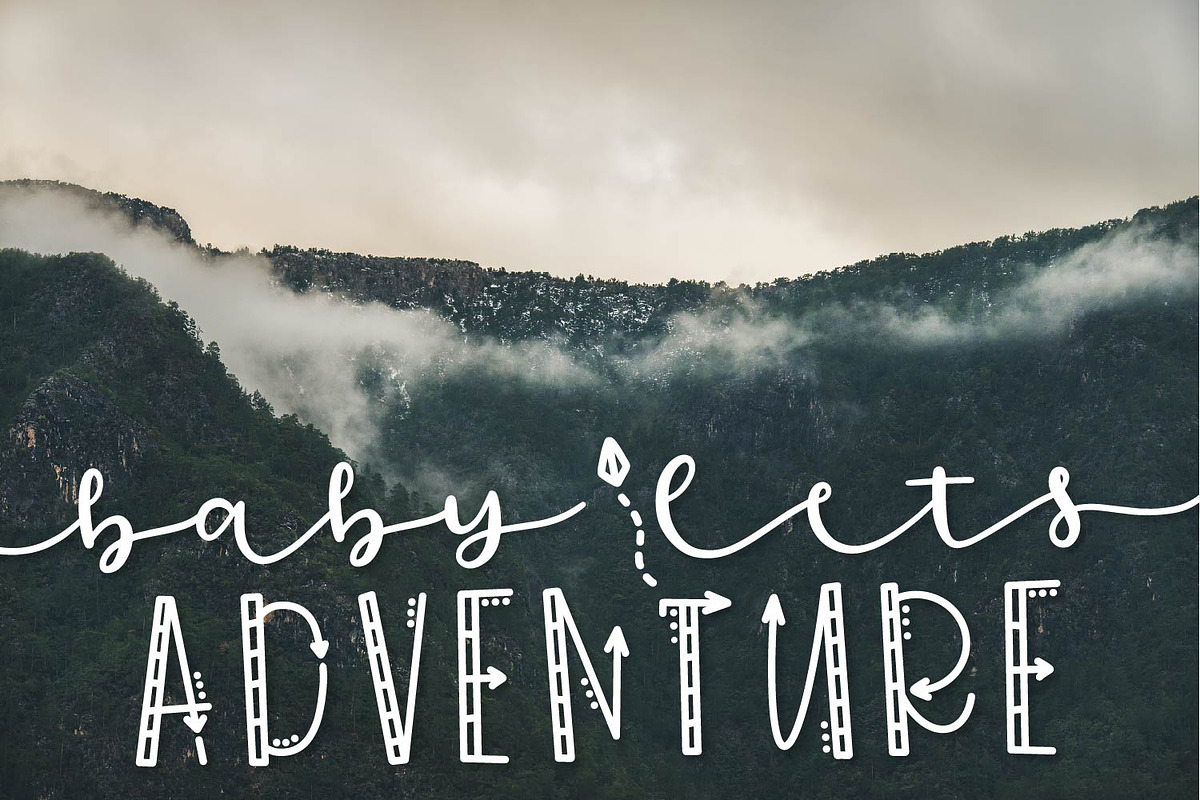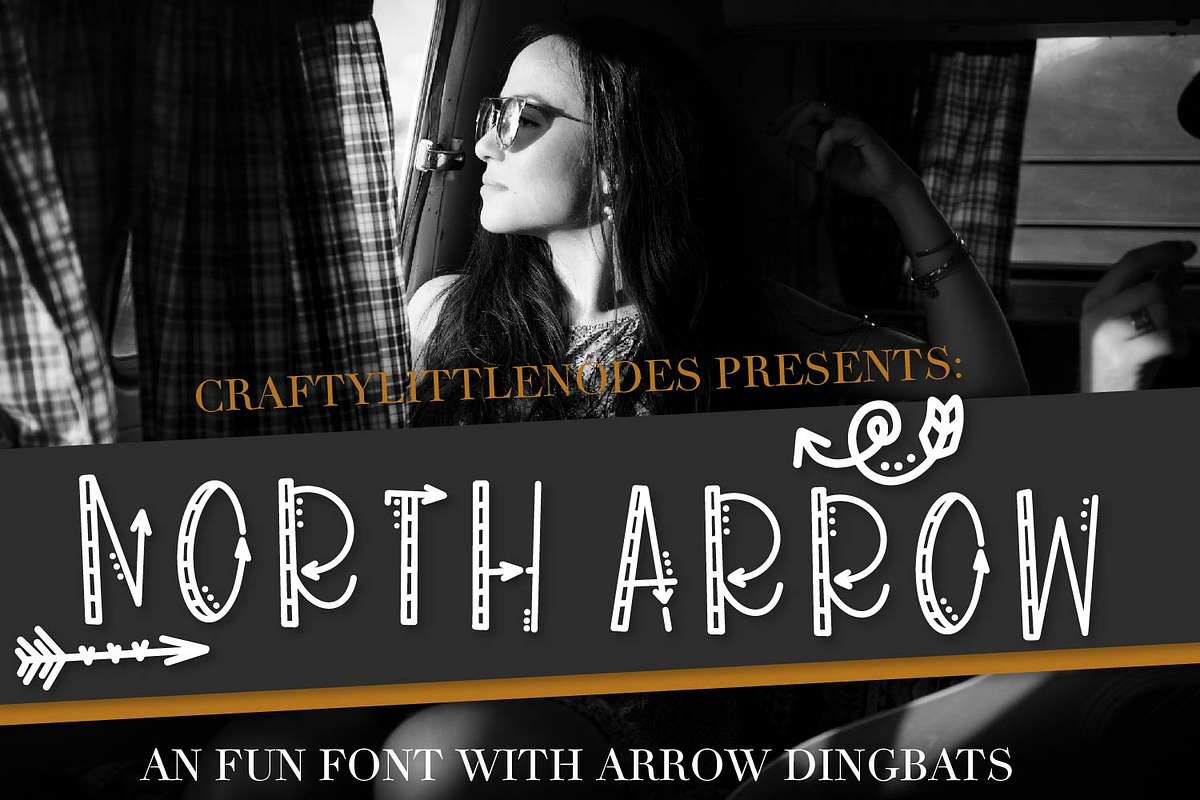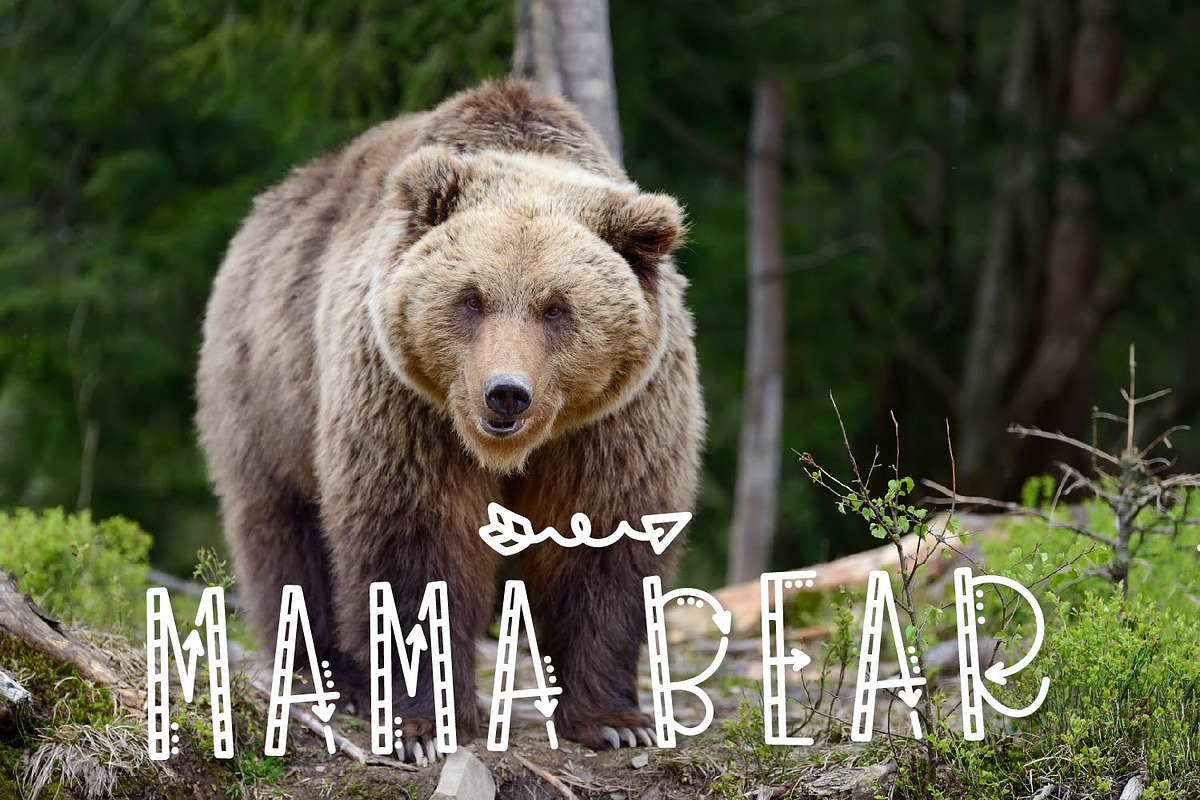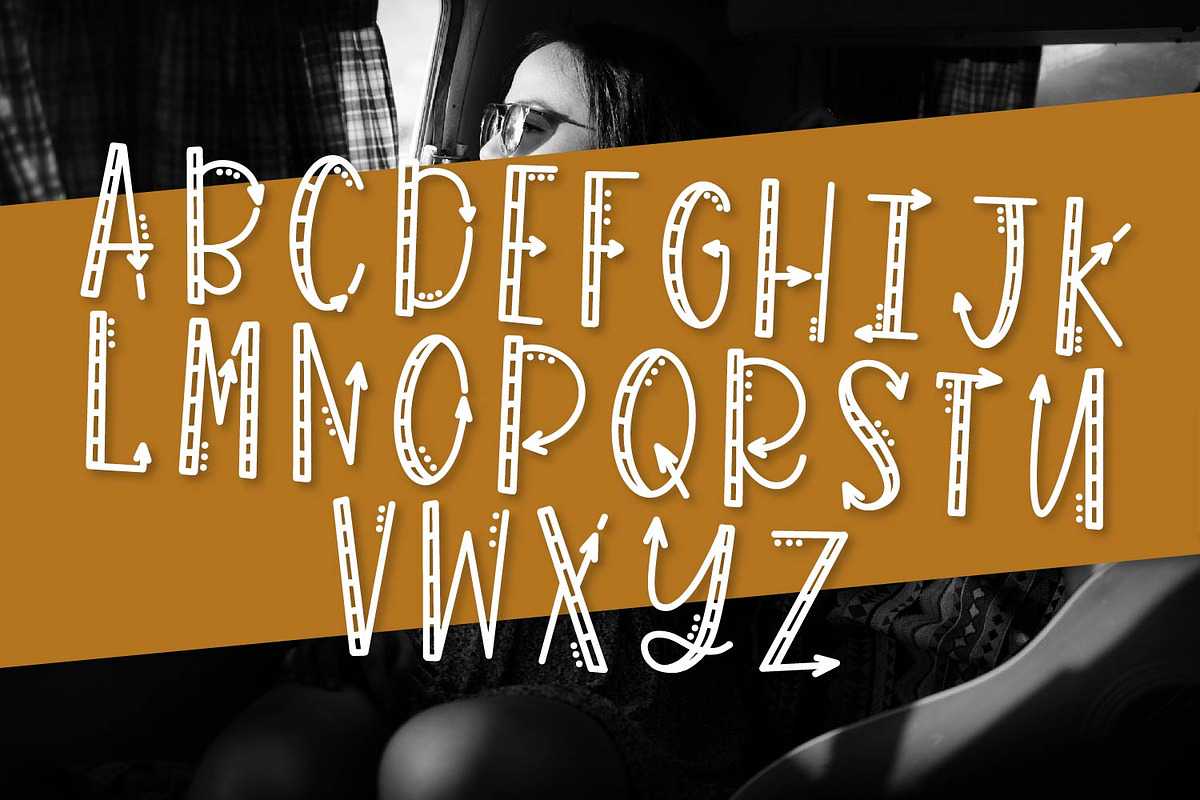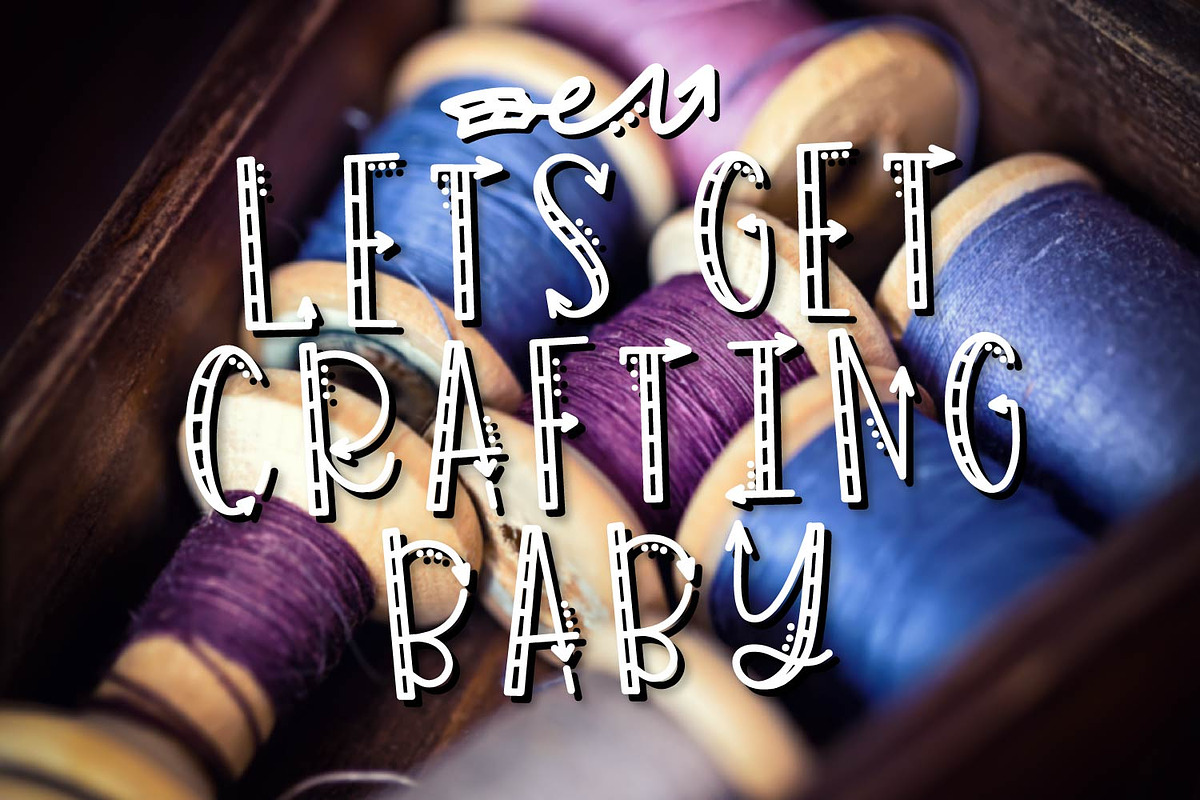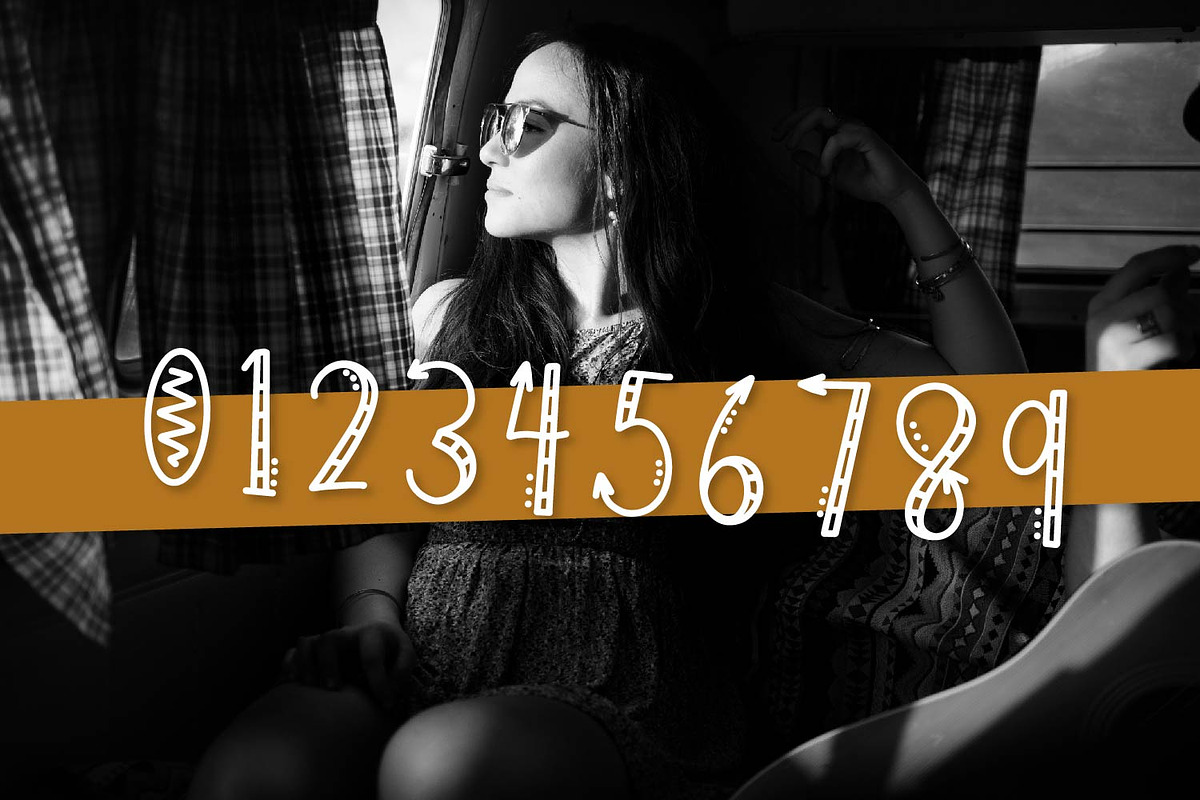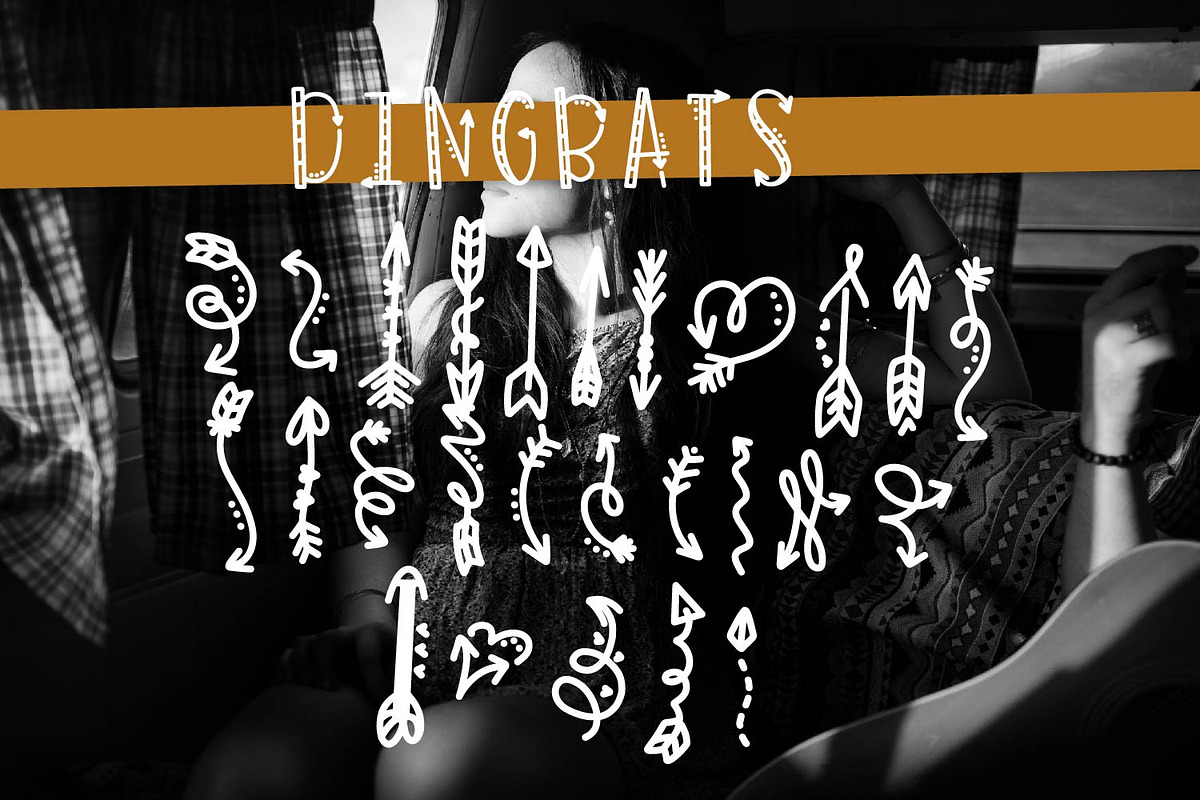
North Arrow - Arrow Font & Dingbat
North Arrow - Arrow Font & Dingbat by CraftyLittleNodes fits naturally into Branding, posters, packaging, typography.